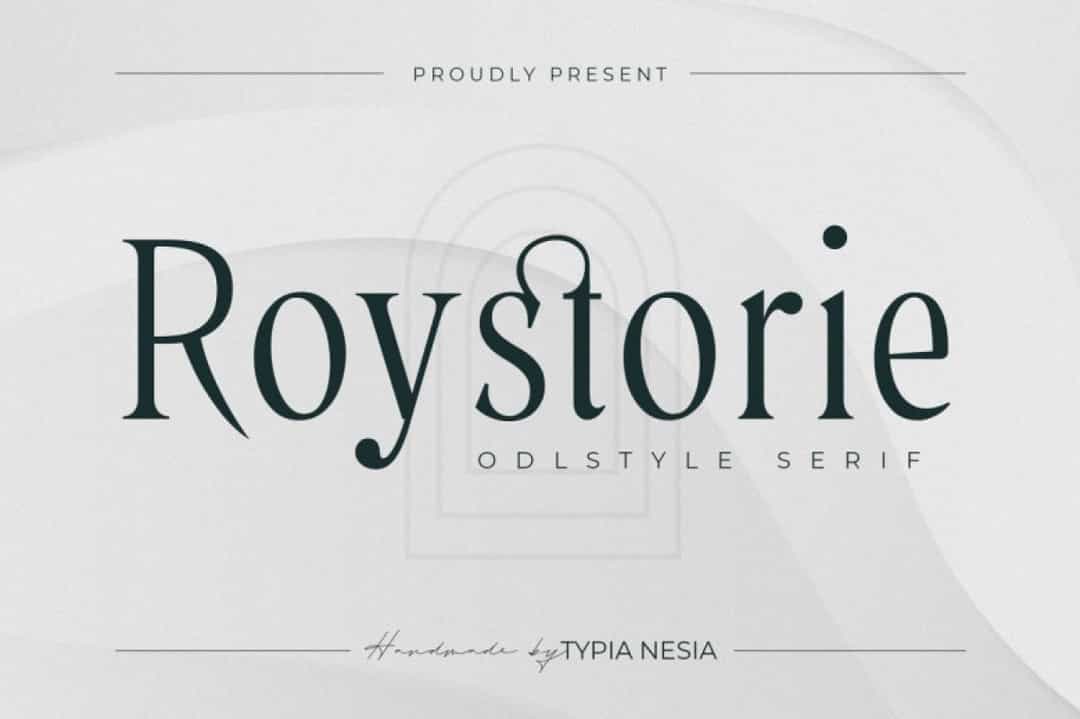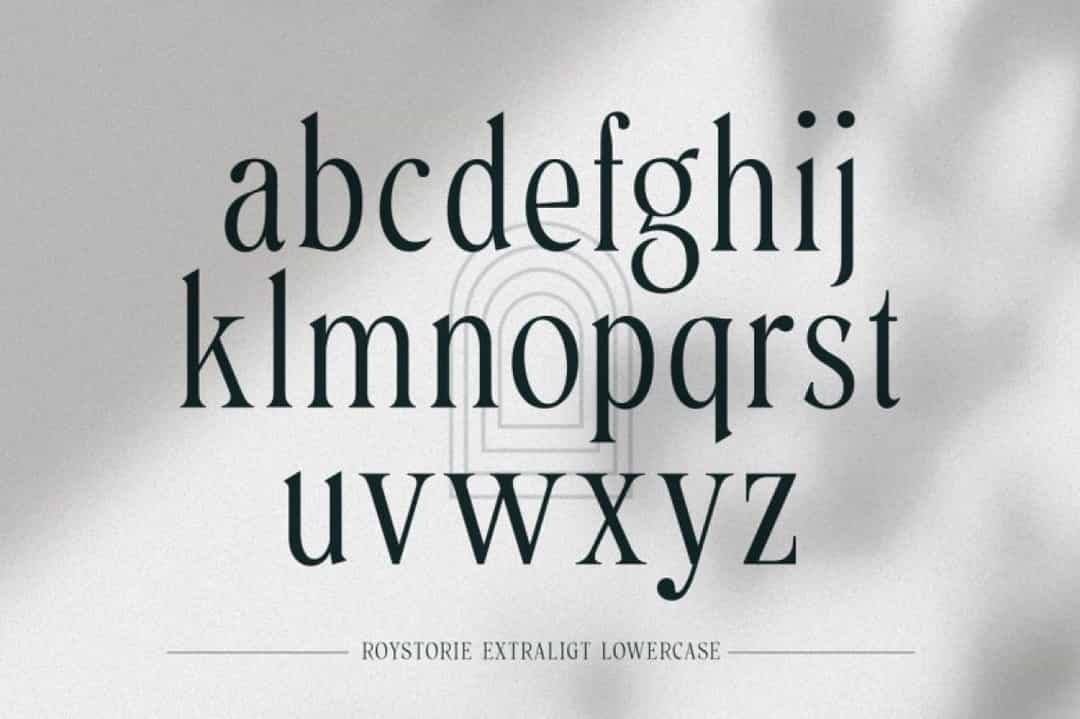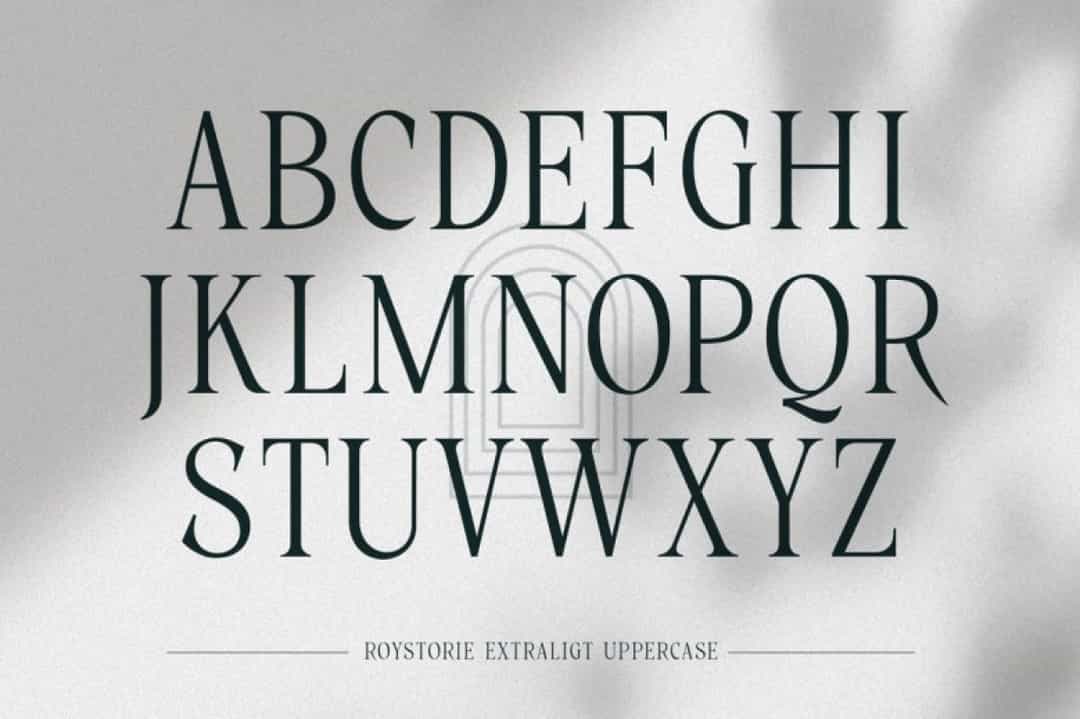
Roystorie stands out as an elegant yet striking sharp serif font with chic alternatives and ligatures that make this font perfect for any project, such as logos, branding projects, design work, clothing branding packaging product packaging magazines headers for magazines as well as text overlay on background pictures.